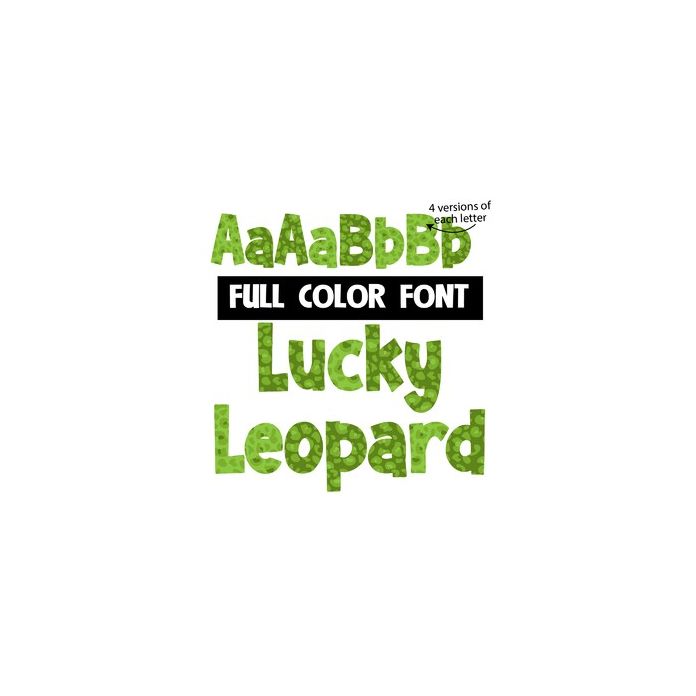
This full-color font features an array of greens in a leopard print. There is a second upper and lower alt case you can access through your system's character map.